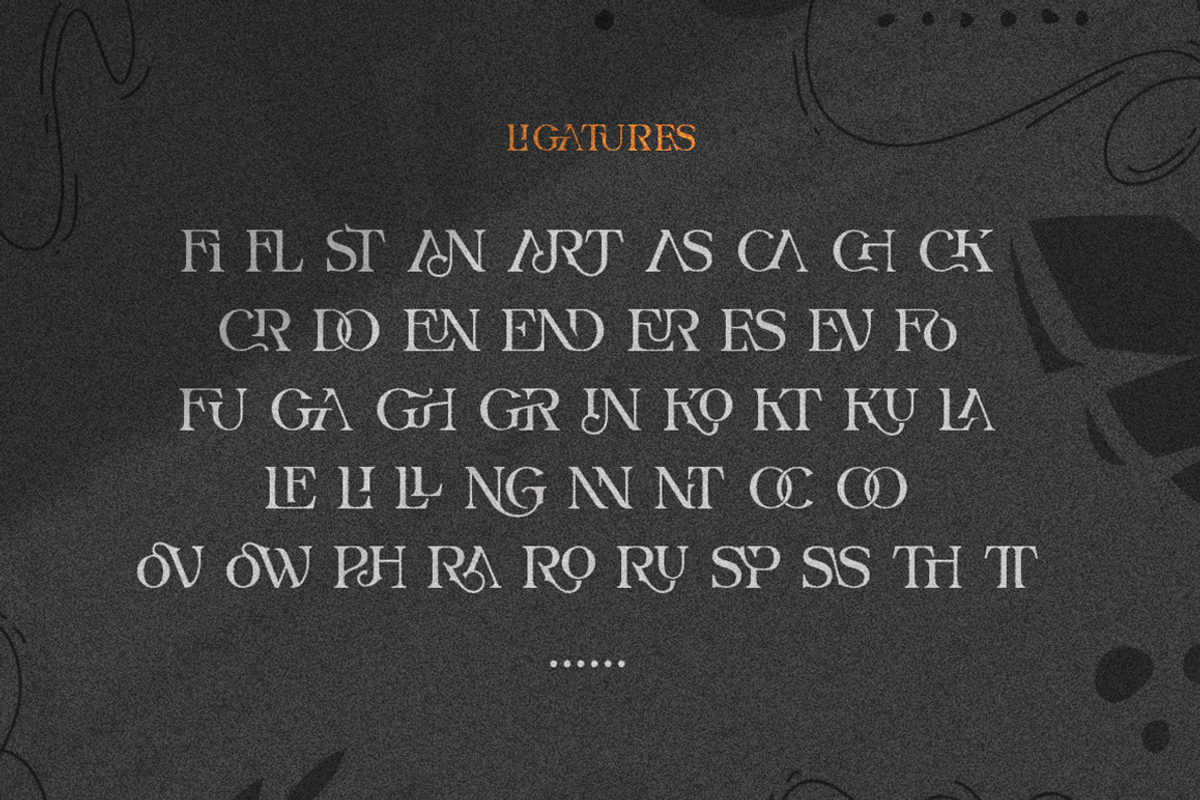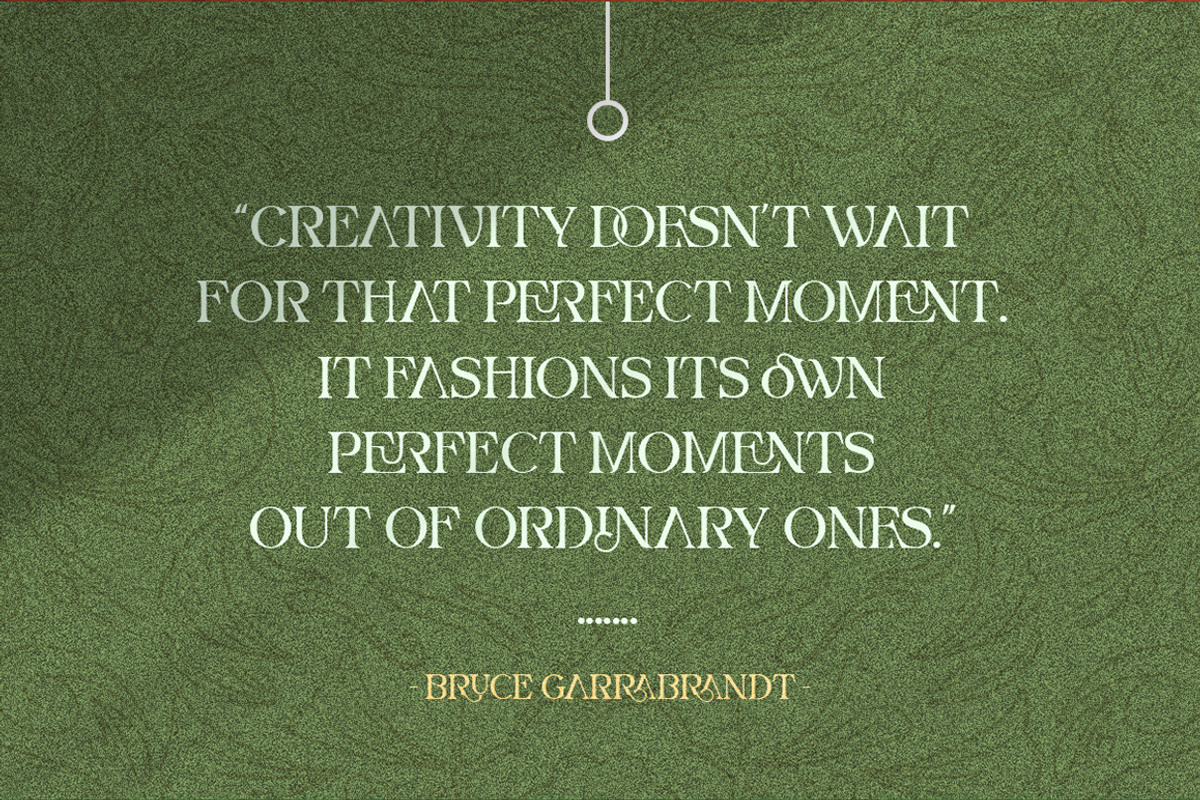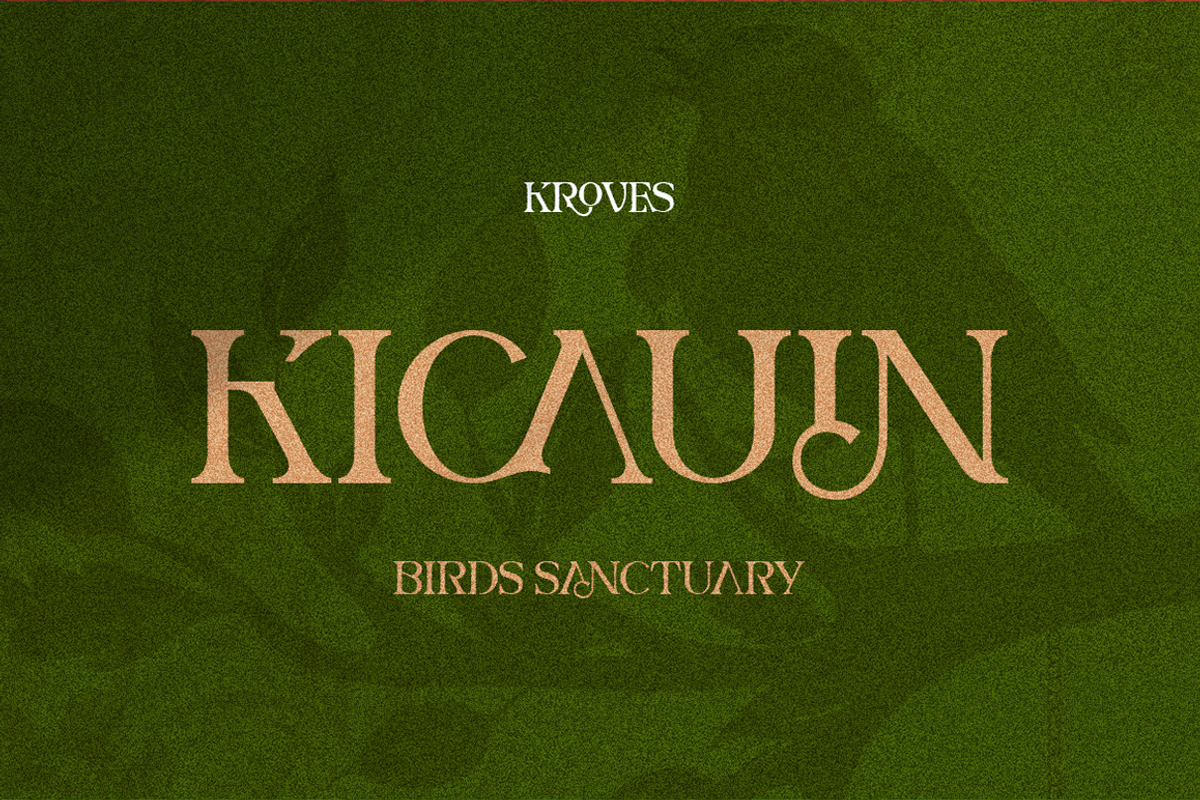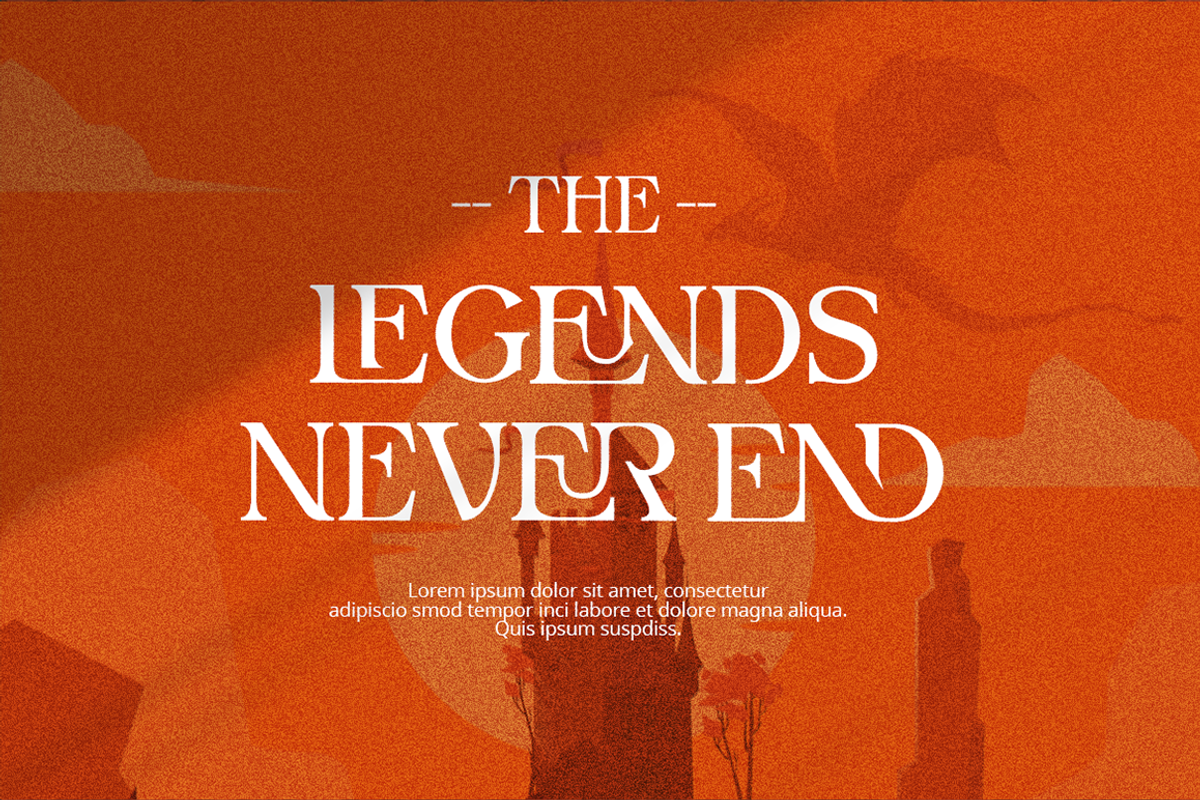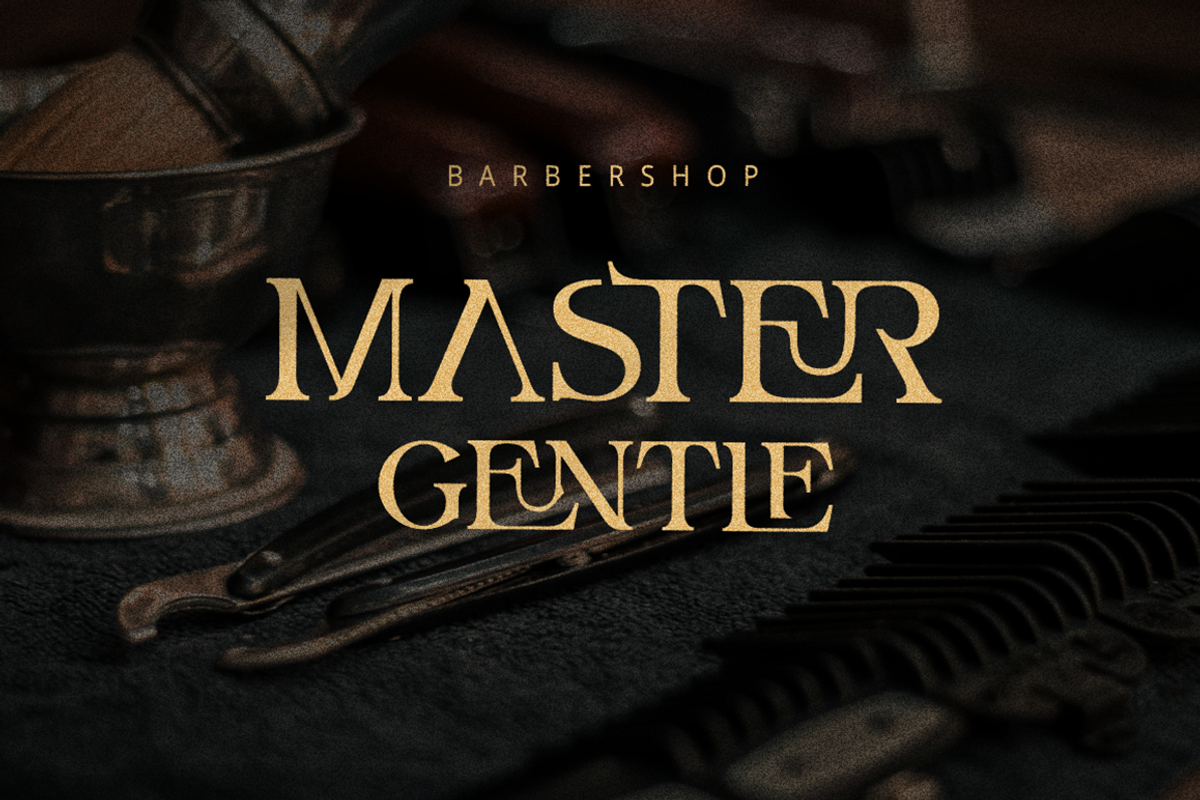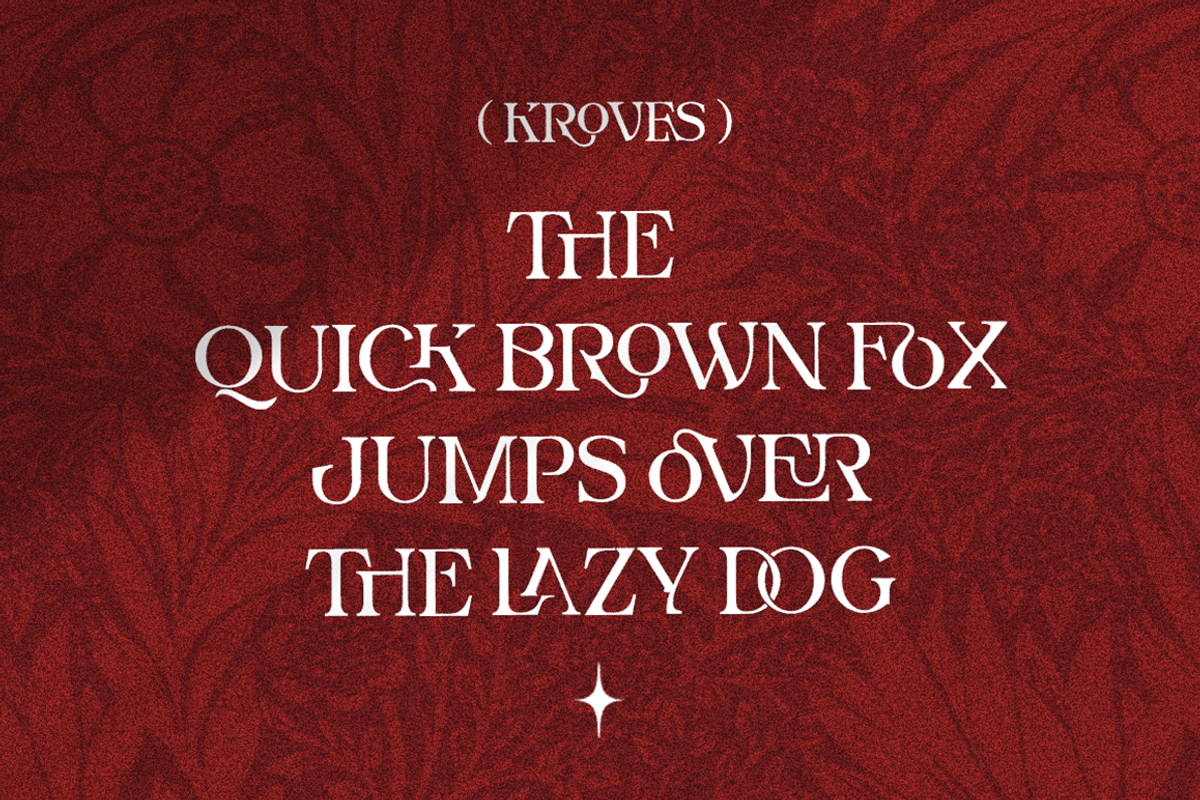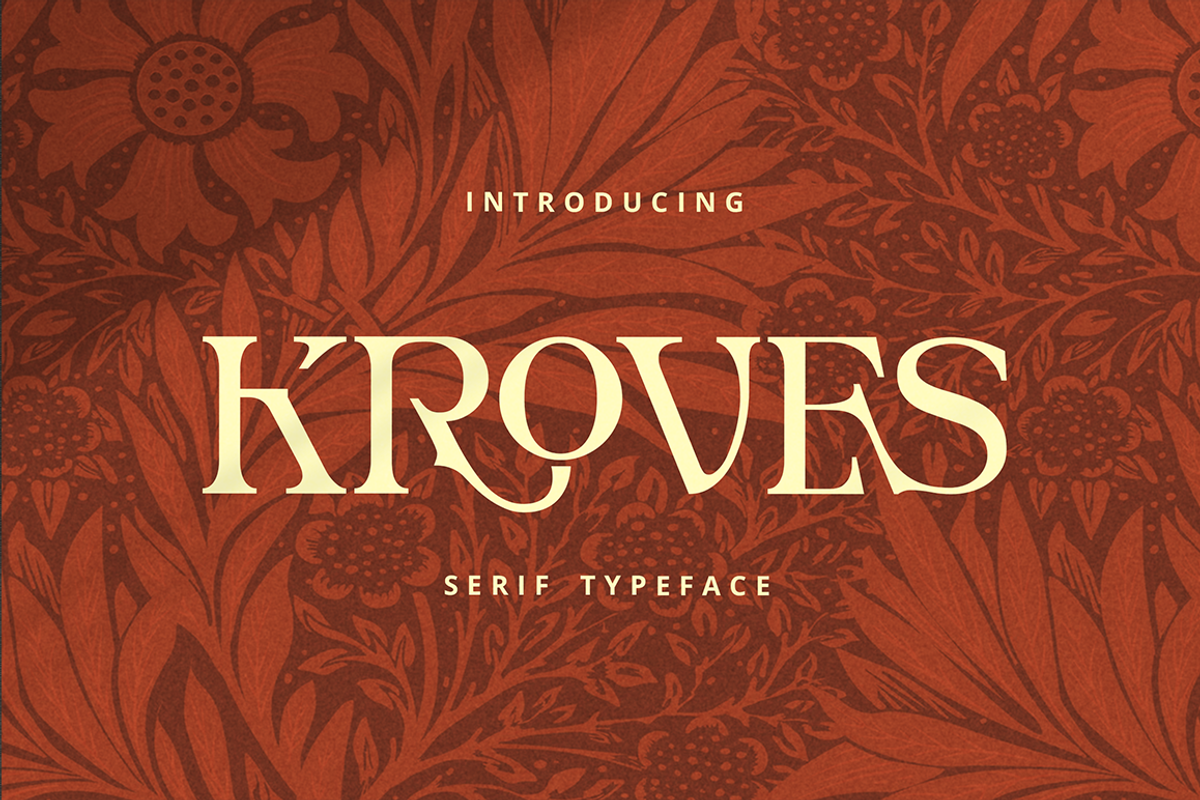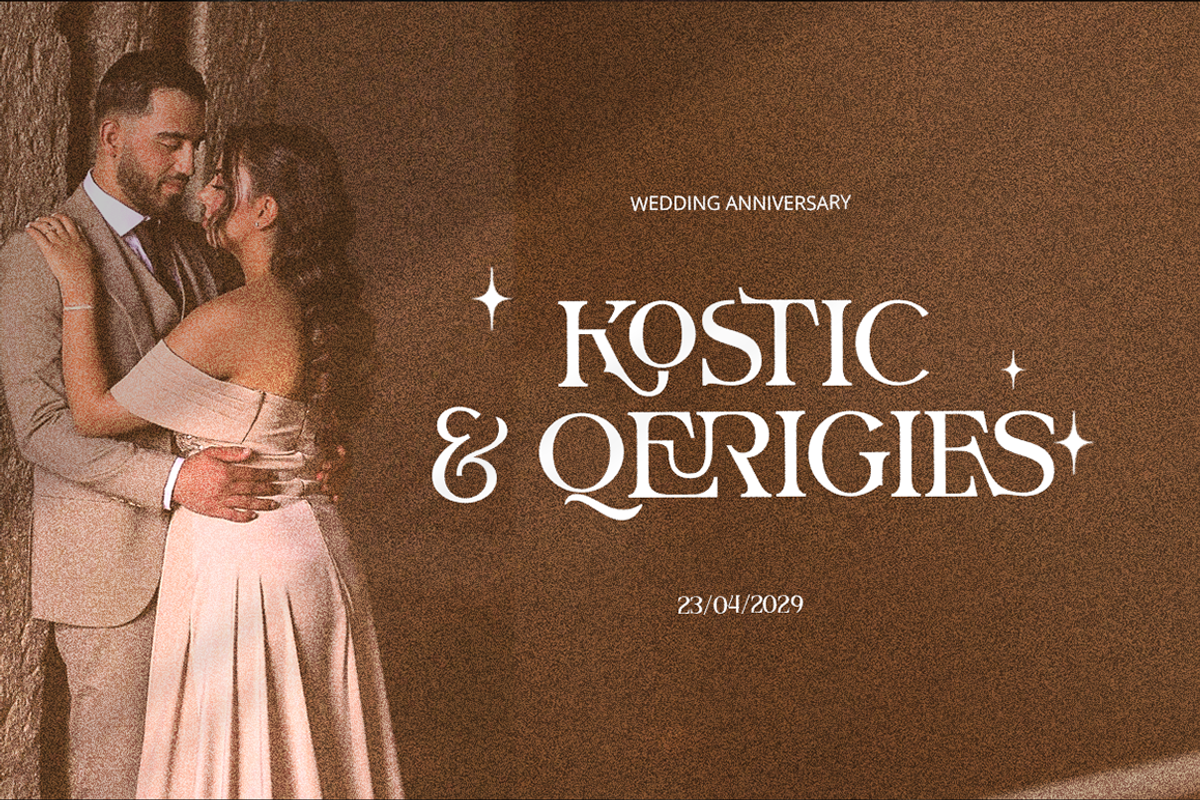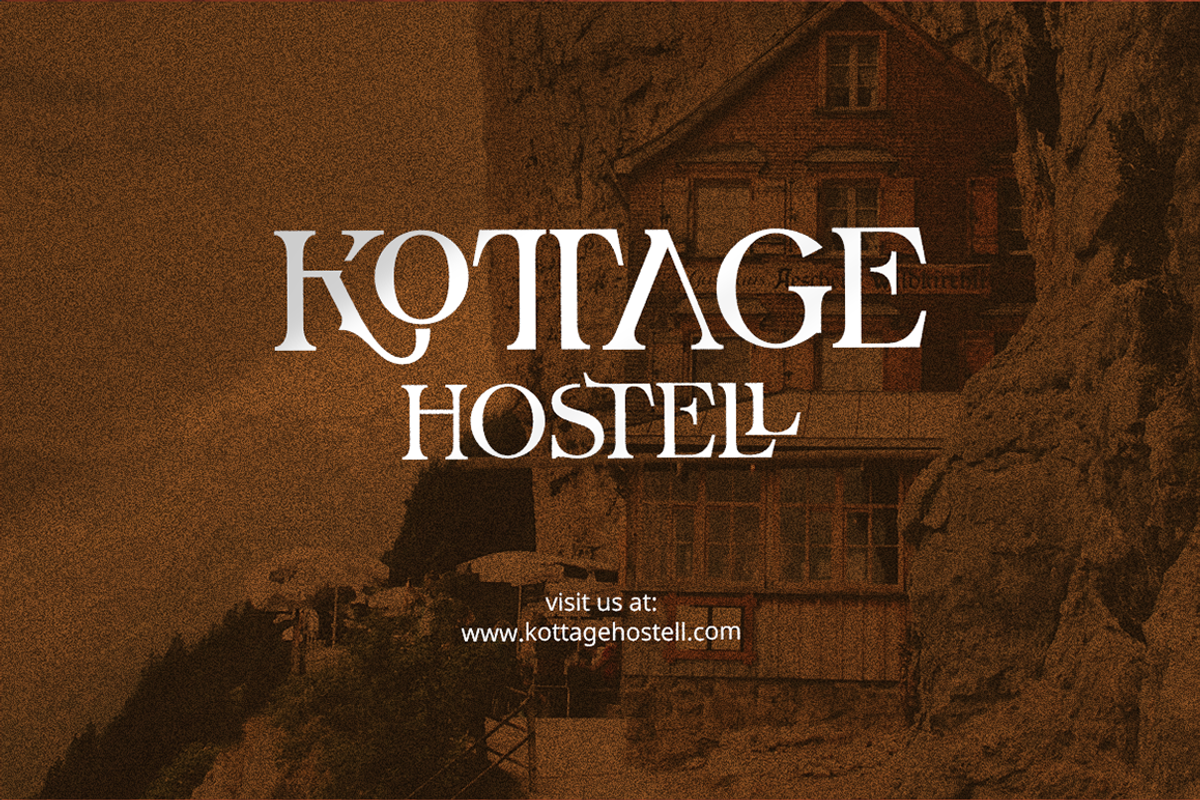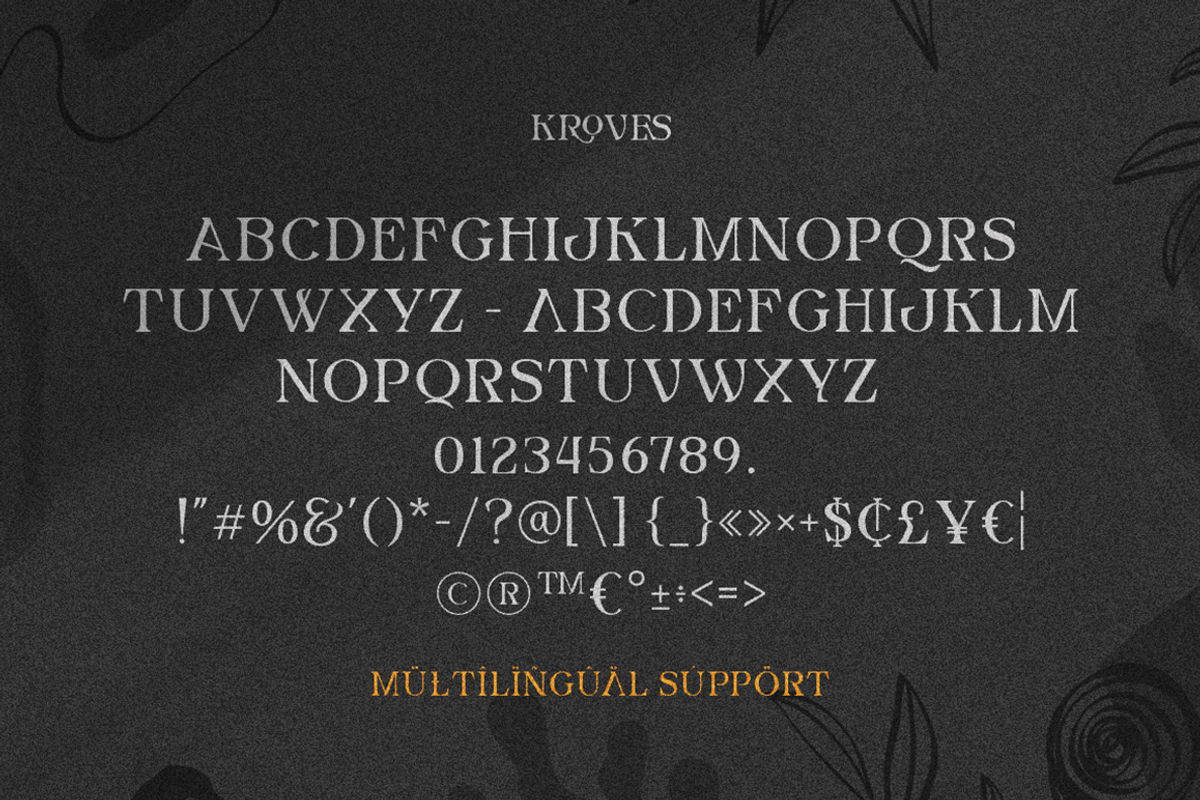
Kroves - Elegant Serif Font
Kroves is an exquisite regular Serif font that exudes elegance and sophistication. Its meticulously crafted letterforms and unique ligature pairs make it a standout choice for designers seeking a touch of refinement. The font's timeless appeal is ideal for creating visually striking social media posts, captivating quotes, and polished branding materials. With its blend of classic charm and modern versatility, Kroves adds a layer of artistry to every project it graces.
- All Caps Serif Font
- Basic Latin Glyphs
- Unique Characters
- Awesome ligature Pairs
- Currencies